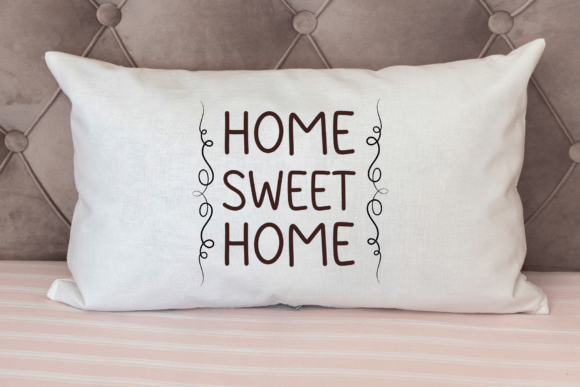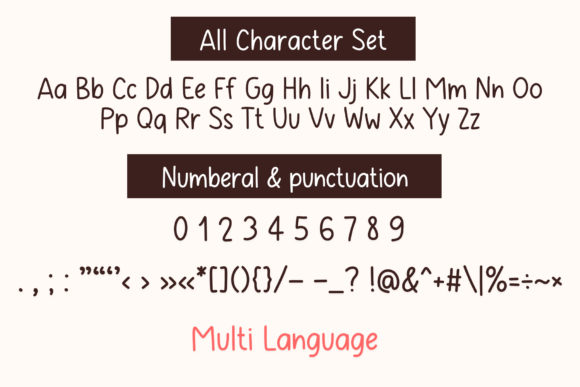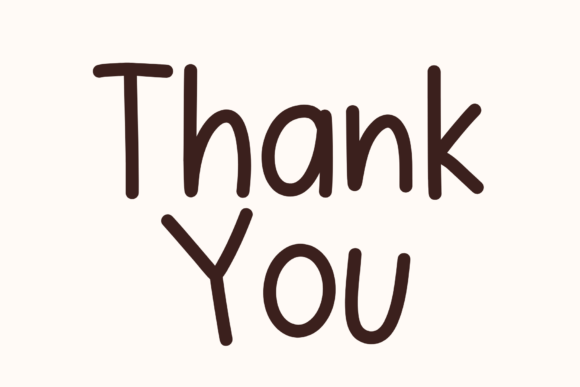
Introduction to Serene Write Font
Do you ever find yourself doodling in the margins of a notebook or scribbling down ideas in the sand? For many creatives, those spontaneous moments of self-expression are some of the most freeing and inspiring. And that’s exactly what the Serene Write Font embodies – a carefree spirit that brings authenticity to any design project.
As a valuable resource for designers, the Serene Write Font offers a high-quality, handwritten font that can elevate any creative project. Whether you’re working on a logo, branding, or simply a blog post, this font is the perfect addition to bring a touch of playfulness and sophistication. With its transparent background, you can easily layer it over any image or design element, making it a versatile design resource that’s sure to please.
Key Features of Serene Write Font
- High-quality design resource ideal for creative projects, offering a sophisticated and elegant look.
- Unique, handwritten style with a transparent background, allowing for easy customization and layering.
- Perfect for use in digital and print media, including book covers, magazine articles, and website content.
- Designed to promote a sense of calm and serenity, making it an excellent choice for creative projects that require a peaceful and reflective tone.
Honest Review: Serene Write Font
I recently had the chance to work with the Serene Write Font, and I must say it’s been a fantastic addition to my design resources. This high-quality font is perfect for any creative project that requires a touch of elegance and sophistication.
- ✨ Beautifully crafted letterforms that add a sense of serenity to any text.
- ✨ A wide range of language support, making it suitable for global audiences.
- ✨ High-resolution vector files for seamless scaling and customization.
- ✨ The transparent background allows for easy integration with any design element.
- ⚠️ Limited stylistic options, which may not appeal to designers who prefer more versatility.
- ⚠️ The font may not be suitable for bold or dramatic headlines, as it’s designed for more subtle applications.
Tips for Getting the Most Out of Serene Write Font
Use the font in conjunction with other design resources, such as high-quality images and transparent backgrounds, to create a visually appealing and professional design for your creative project. Experiment with different font sizes, colors, and styles to find the perfect look for your design. You can also use the font to create a consistent design theme throughout your presentation or document.
The Serene Write Font is a versatile design resource that can be used in a variety of creative projects, including:
- Business presentations
- Branding and identity design
- Editorial and publishing design
Yes, the Serene Write Font has a transparent background, making it ideal for use in designs where a clear background is required. This feature allows designers to easily combine the font with other design elements and create a seamless visual effect.